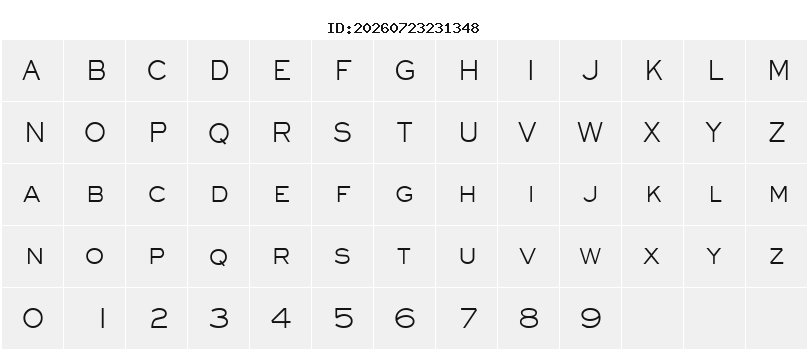
Eye glass Condensed Preview
About Eye glass Condensed.ttf
Eye glass Condensed.ttf is a modern, elegant sans-serif font designed for ultimate readability and visual harmony. Perfect for branding, headlines, web design, and print materials.